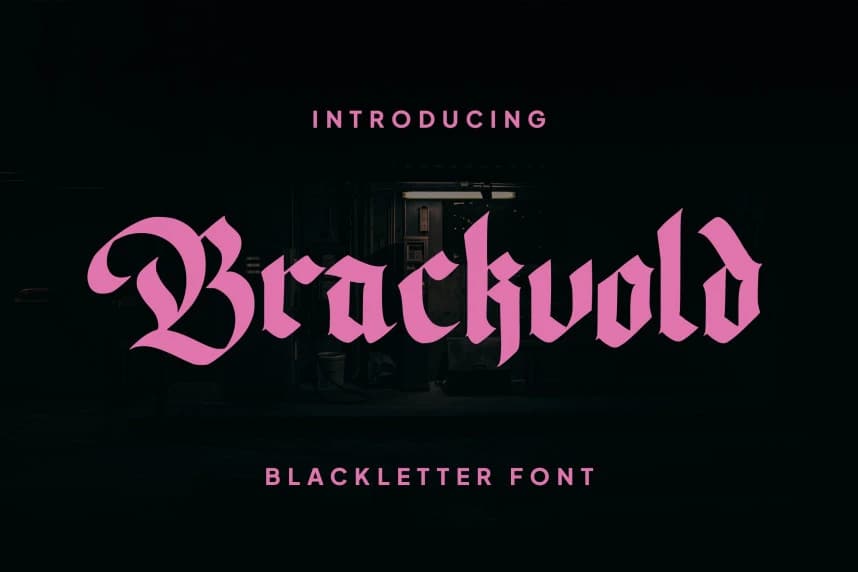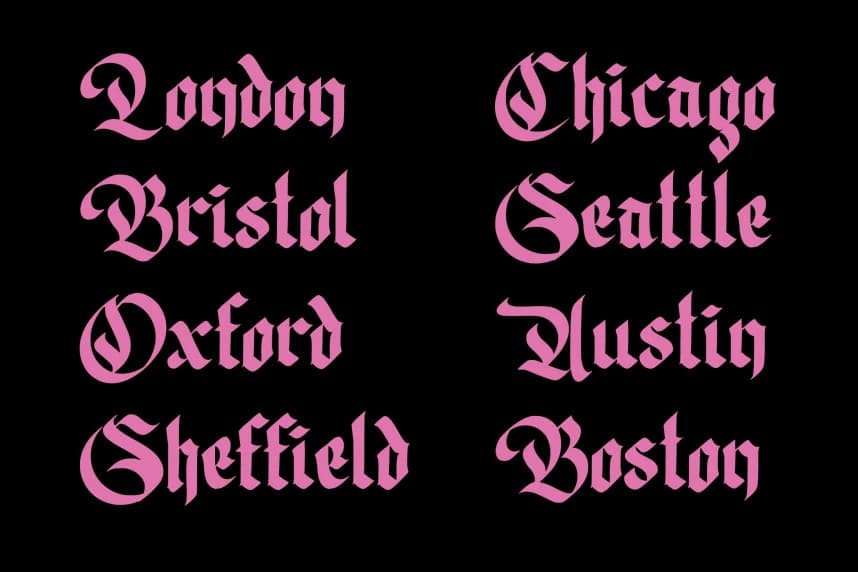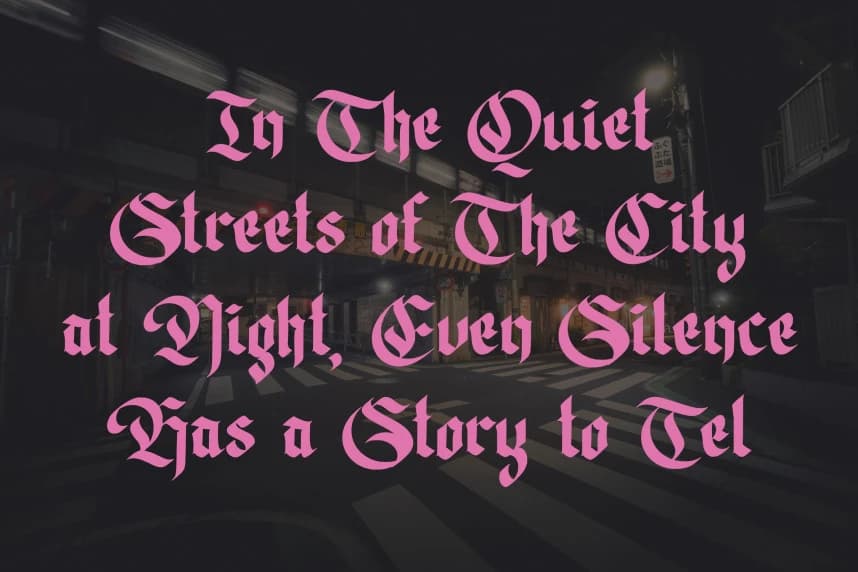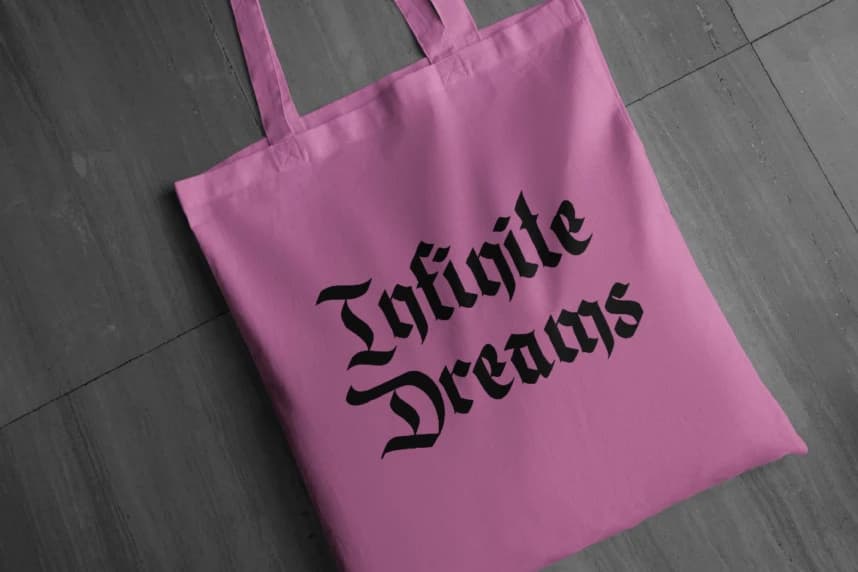
Brackvold Blackletter Font
Brackvold Blackletter Font is a premium blackletter font that masterfully blends the dark, mystical essence of traditional gothic calligraphy with clean, modern sharp edges. Designed for creators who want to make a powerful and authoritative statement